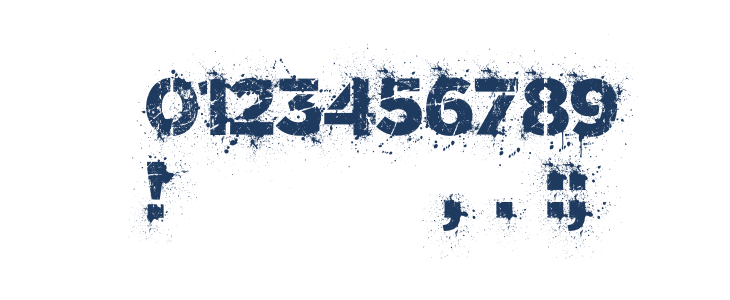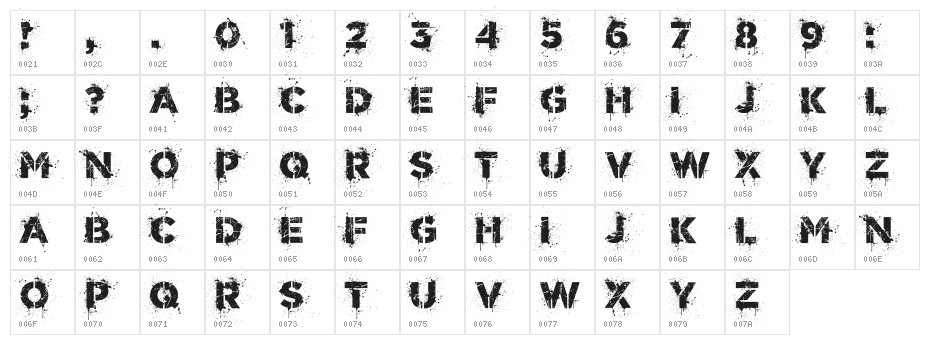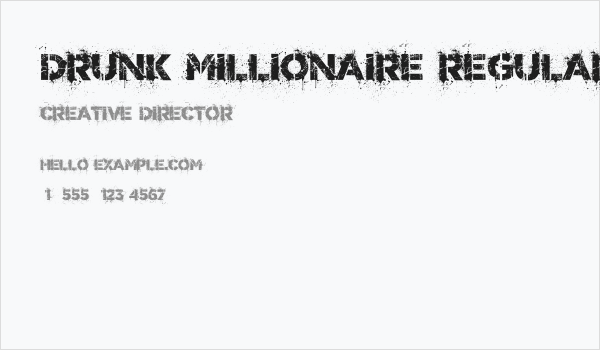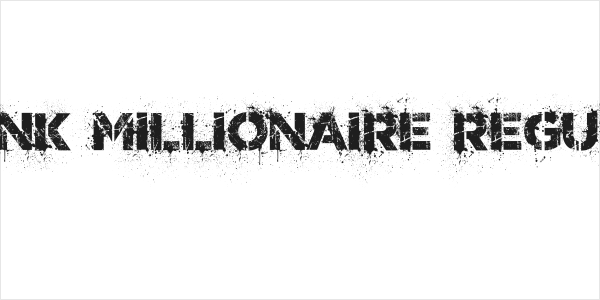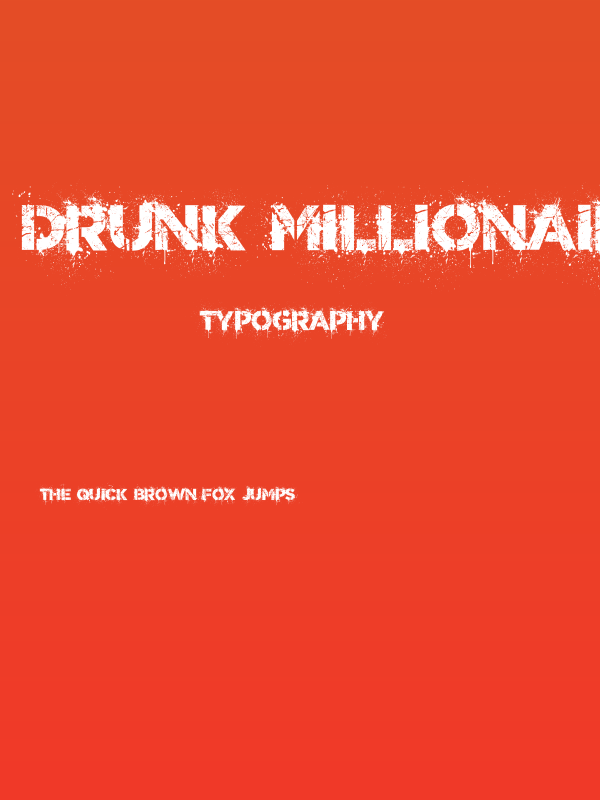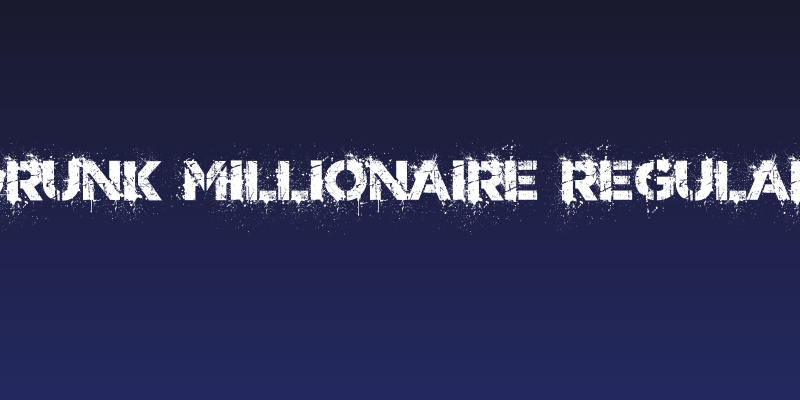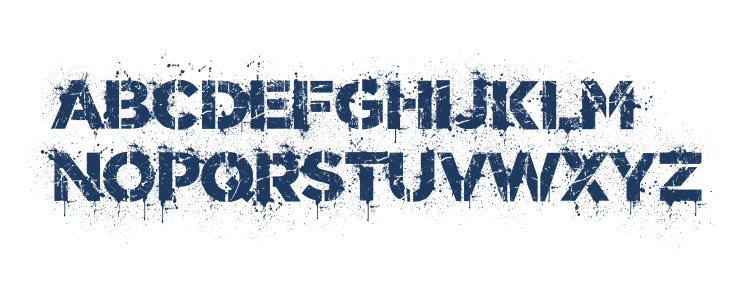
Drunk Millionaire Regular Font
Drunk Millionaire Regular Description
This font features a bold, distressed style with a grunge aesthetic. The characters are heavily textured, giving the appearance of being worn or weathered. Each letter is distinct with rough edges and a splattered effect, creating a dynamic and edgy look. The uppercase and lowercase letters maintain a consistent style, while numbers and special characters follow the same distressed theme. This font is ideal for projects that require a rugged, urban feel, such as music posters, album covers, or edgy branding materials.
| Overall Style | Grunge, Urban, Edgy |
| Proposed Projects | Ideal for music posters, album covers, edgy branding, and urban-themed designs. |